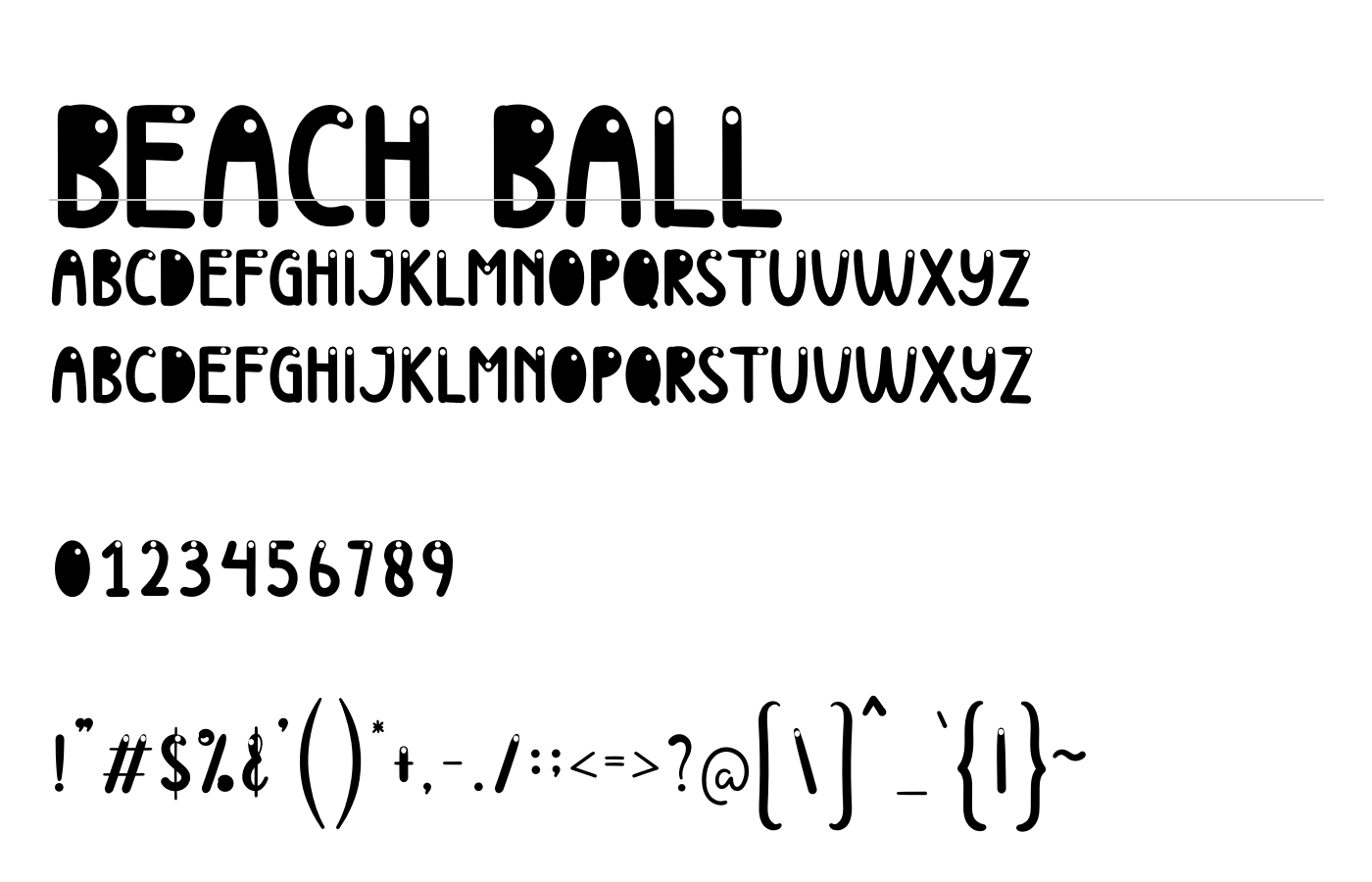
Beach Ball Font is a playful and bold sans serif typeface characterized by its rounded, chunky letterforms with unique circular cutouts, evoking a fun, casual vibe. Its thick strokes with minimal contrast and quirky shapes make it ideal for eye-catching headlines, children's designs, and beach-themed branding where a lively and friendly personality is desired. This font works best in display settings such as posters, logos, and packaging that aim to convey energy and joy.
Beach Ball Font
About Beach Ball Font